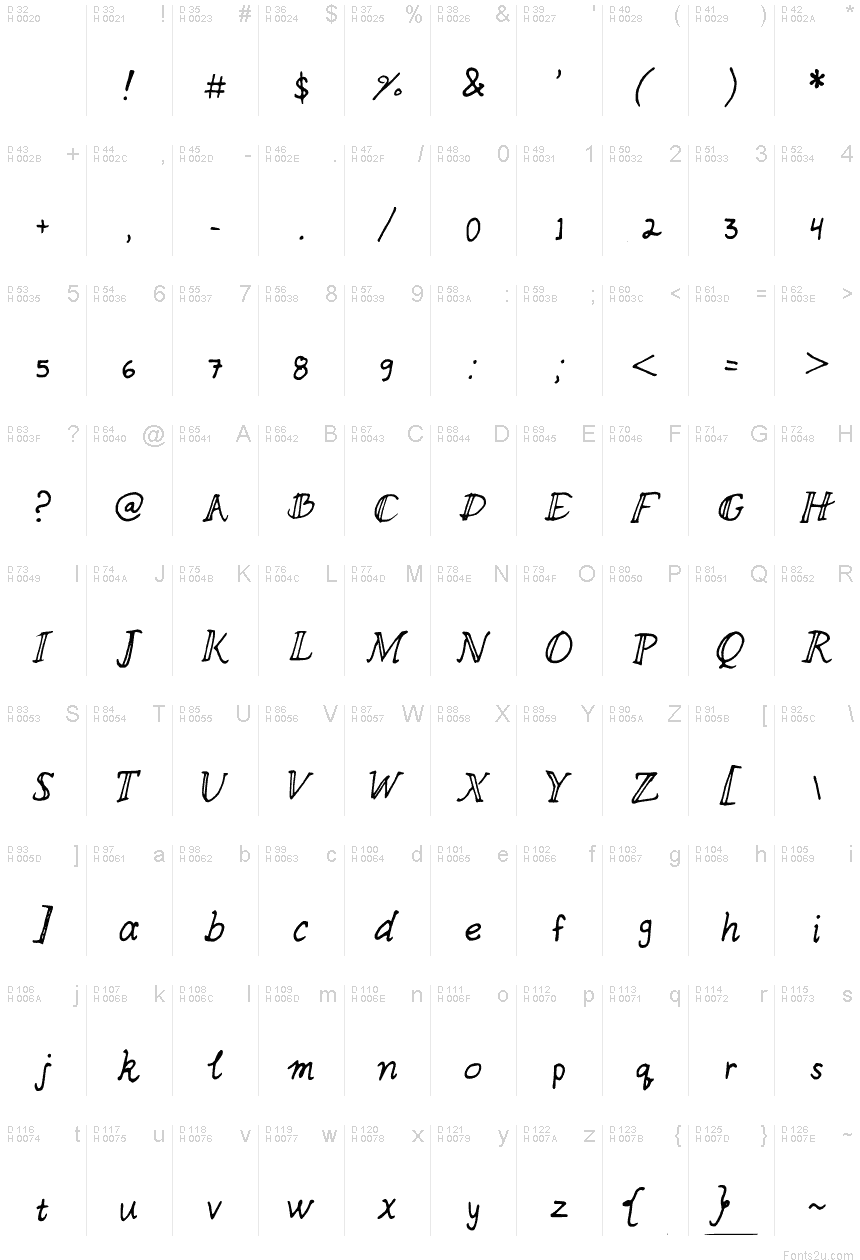
stripedsunshine
Striped Sunshine from MyScriptFont.com is a free calligraphic font with a loose, theatrical swing. Its tall, uneven letters shift between broad downstrokes and fine, curling lines, creating a lively silhouette rather than a polished formal hand. Pointed tips and exaggerated curves give the writing a mischievous edge.
Designers working on playful fashion or music projects could use it for posters, merchandise, and event invitations. The dramatic stroke changes suit cabaret, indie performance, and offbeat romance themes, where the lettering can feel like part of the entertainment.